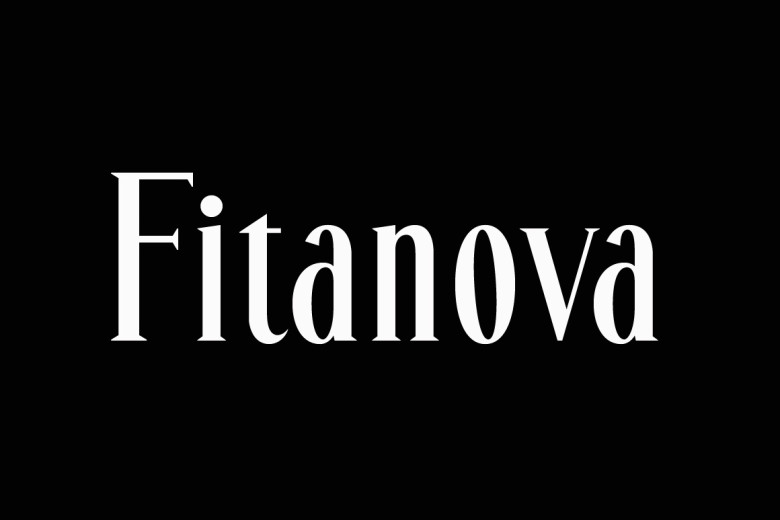
Fitanova Font
The type f as known by Fitanova font, which is an elegant serif, bold with proud serifs, designed with bold and smooth curves. Buy it and deepen the impression, making it perfect for fashion branding and design projects.